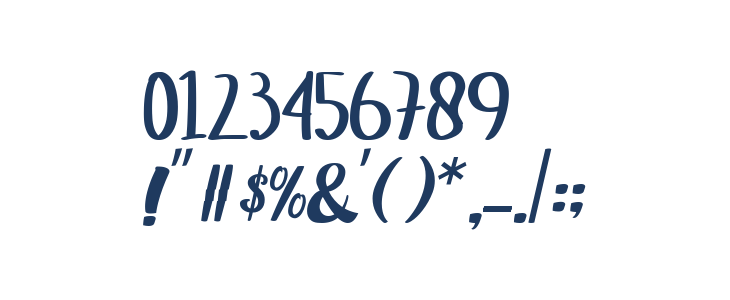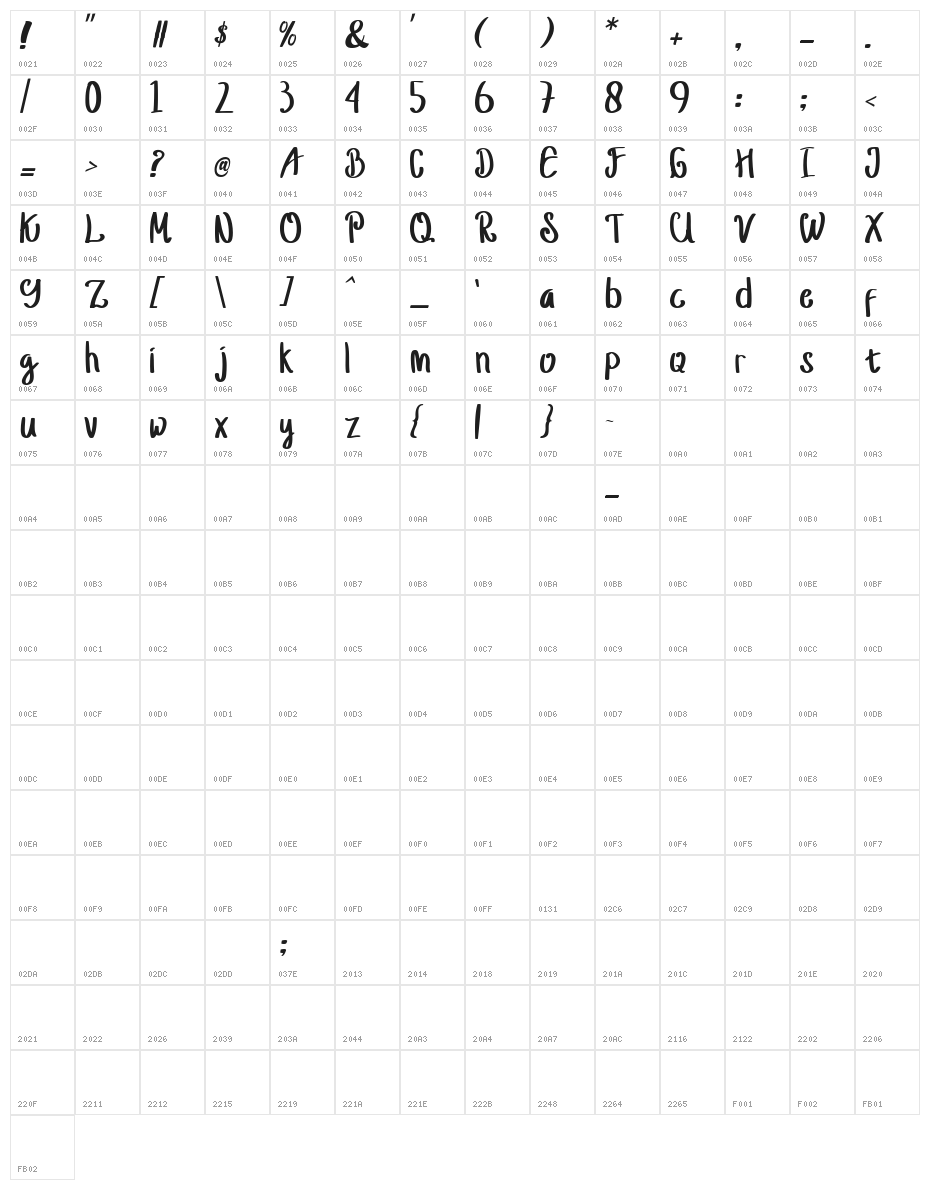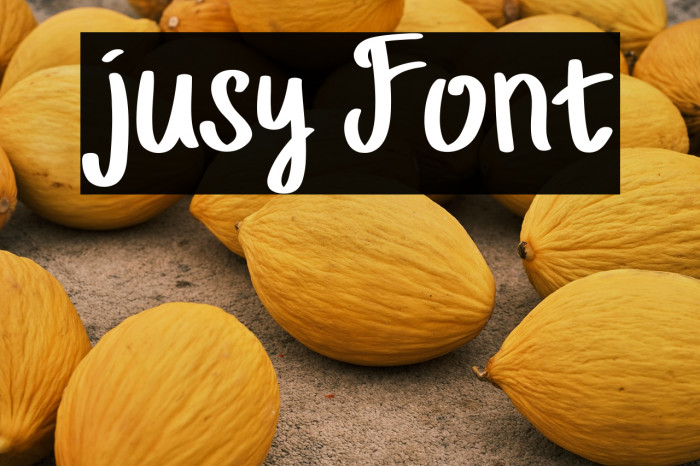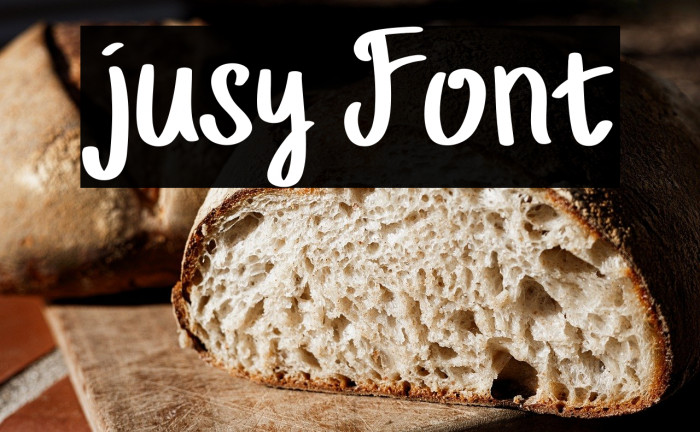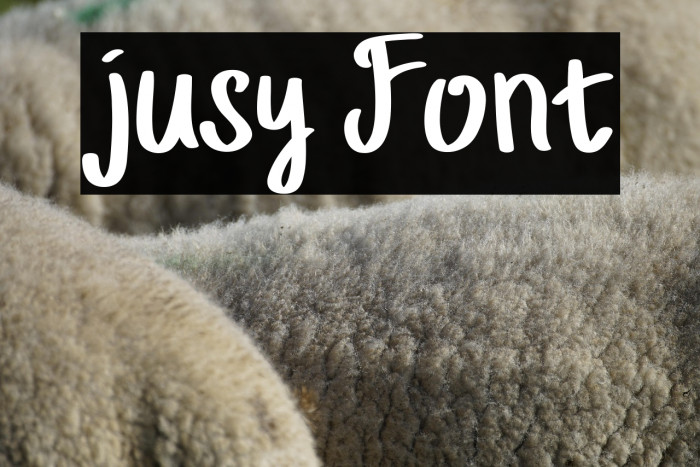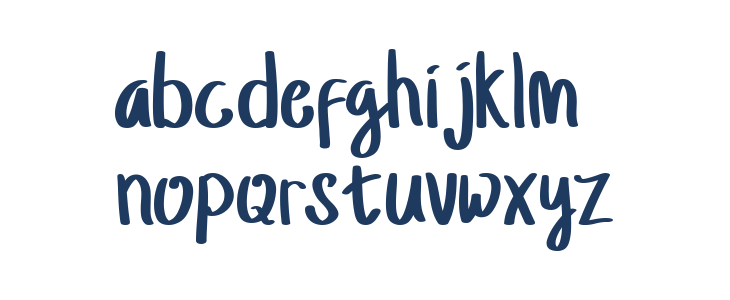
jusy Font
jusy Description
This font features a playful and dynamic style with a handwritten appearance. The letters are bold and slightly irregular, giving them a lively and informal feel. The uppercase and lowercase characters maintain a consistent flow, with rounded edges and a slight slant that adds to the casual aesthetic. The numbers and special characters are equally expressive, matching the overall whimsical tone. This font is perfect for projects that require a personal touch, such as invitations, greeting cards, or playful branding.
| Proposed Projects | Ideal for invitations, greeting cards, playful branding, and casual designs. |